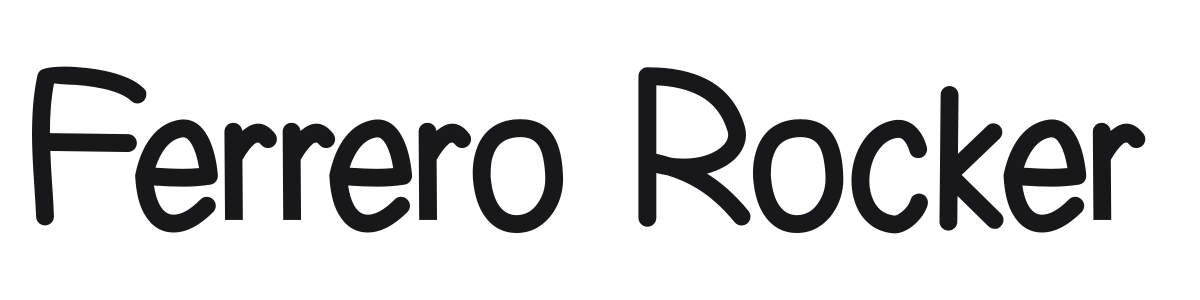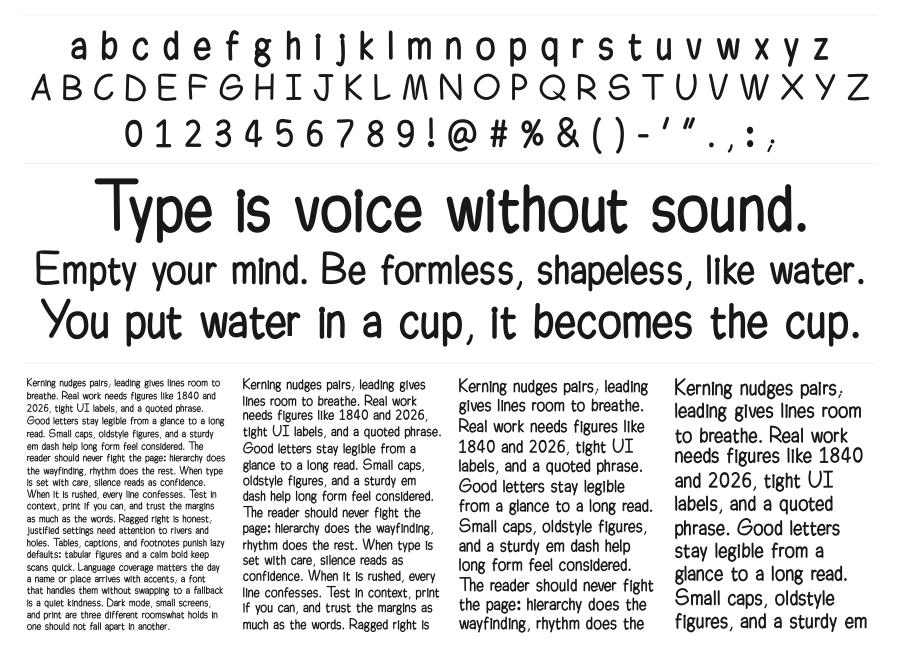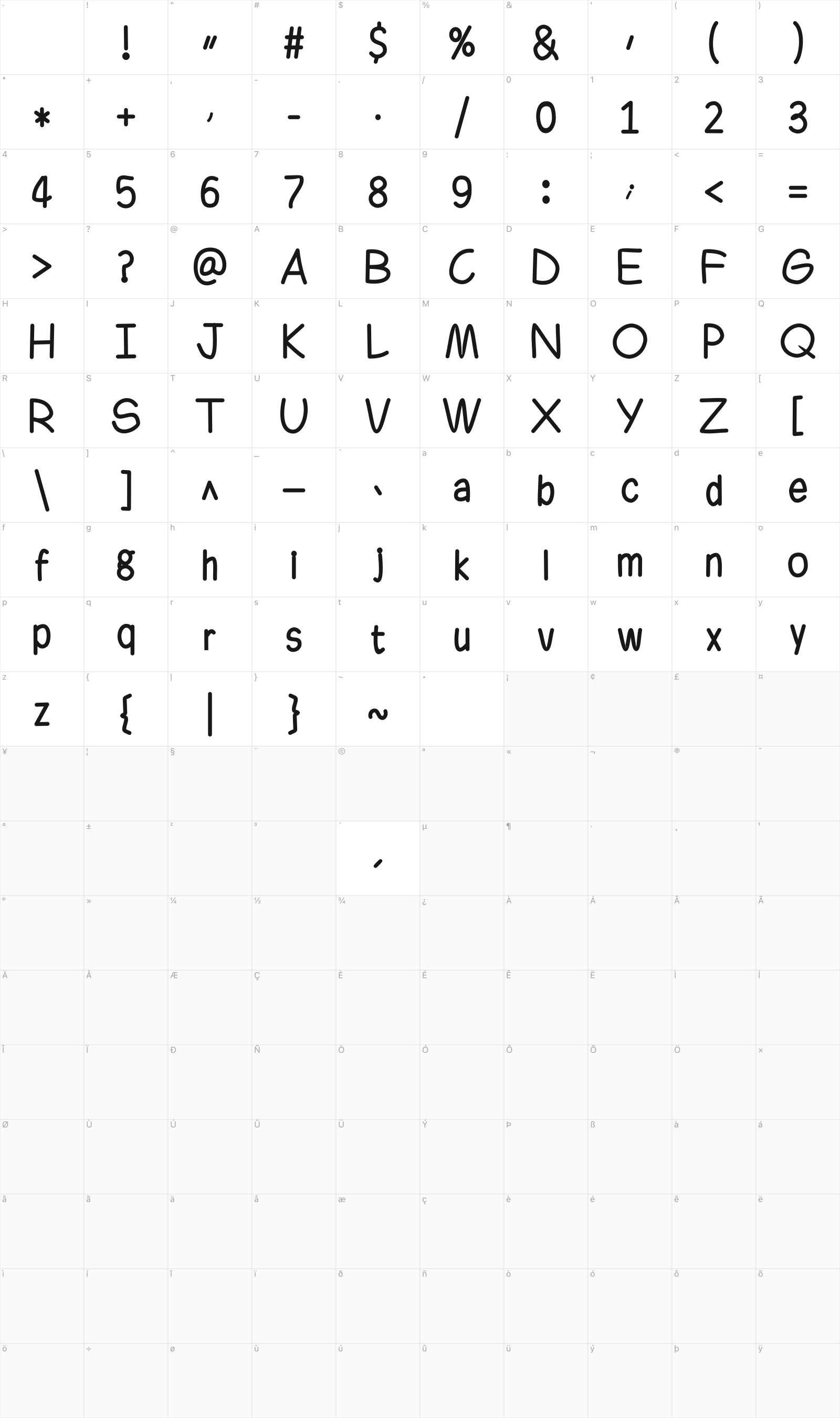
Ferrero Rocker
Ferrero Rocker is a rounded casual sans with soft, bulbous terminals and a subtly hand-drawn irregularity. The relaxed rhythm and gentle weight give it a warm, approachable personality without tipping into full cartoon territory. It works well on packaging, food branding, and anywhere a friendly headline is needed.